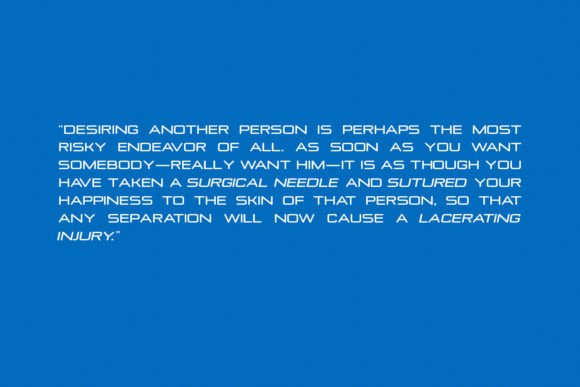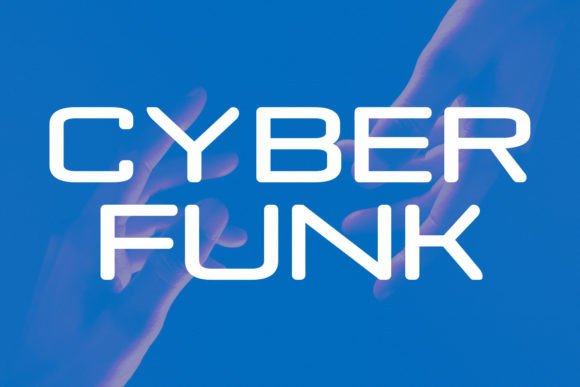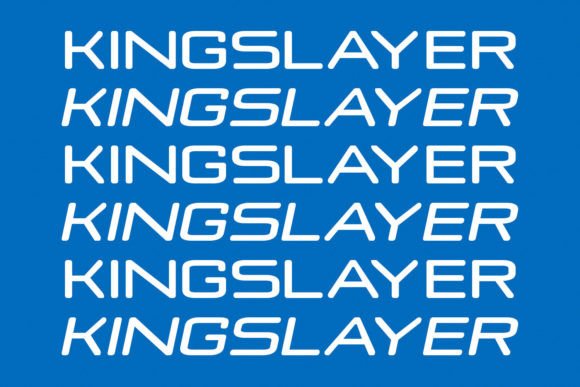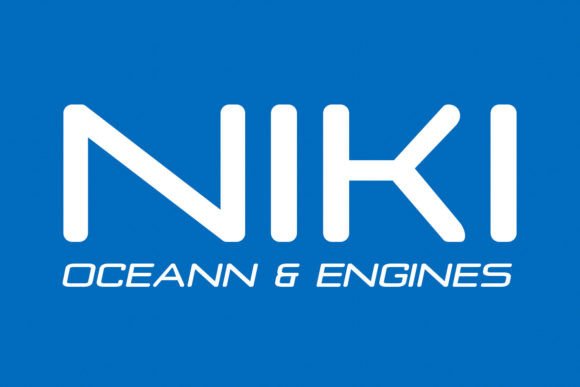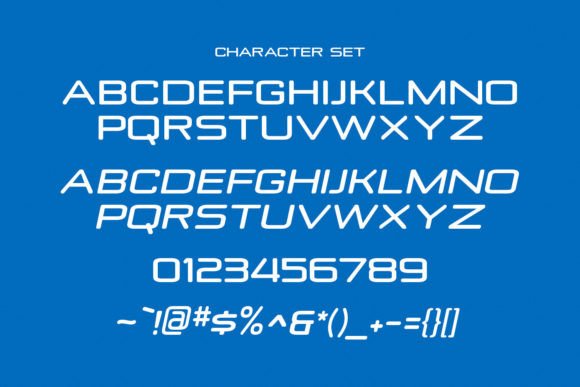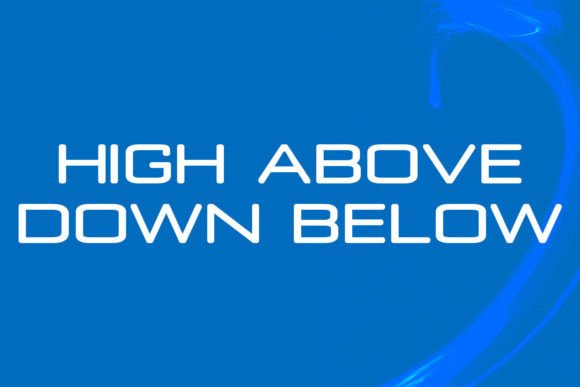
The Perfect Font for a Powerhouse Brand
As designers, we’ve all been there – staring at a blank page, trying to find the perfect font to bring our vision to life. Sometimes, it’s the smallest details that make all the difference. For me, it was the moment I stumbled upon the Calrigo Font, and I knew I had to have it. Its bold, blocky letterforms seemed to shout “strength” and “power” – exactly what I needed for a sports branding project.
Calrigo Font is a cool wide display font that exudes confidence and modernity. Its unique combination of boldness and spaciousness makes it an excellent choice for titles, headlines, and other attention-grabbing design elements. Whether you’re working on a fitness campaign or a sports-related project, Calrigo Font is the perfect tool to convey a sense of strength and energy.
Calrigo Font Key Features
- Font Family: Calrigo Font is a sans-serif font family designed for digital use.
- Unique Characteristics: Calrigo Font features a clean and modern design, with a focus on readability and legibility, making it ideal for digital interfaces, publications, and marketing materials.
Review of Calrigo Font
Overall, I was really excited to dive into the Calrigo Font, but my experience was a mix of great and not-so-great. Here’s the breakdown.
- The Calrigo Font has a unique and modern aesthetic that catches the eye. Its geometric and sans-serif design makes it perfect for digital interfaces and websites.
- The font is highly legible, even at smaller sizes, making it ideal for body text and smaller headings.
- The font’s versatility is impressive, working well in both titles and paragraphs.
- One of the main issues I had with Calrigo Font is its lack of robustness. The font doesn’t come with a full range of language support, which can be a major limitation for international projects.
- The font also lacks a clear guideline for pairing with other fonts, which can make it difficult to create a cohesive design.
- Lastly, the font’s customization options are limited, which can make it difficult to tailor the font to specific design needs.
While Calrigo Font has its strengths, its limitations hold it back from being a top-tier font. If you’re looking for a modern and legible font for a specific project, it may be worth considering. However, for more complex or international projects, you may want to look elsewhere.
Getting the Most Out of Calrigo Font
Here are some tips to get the most out of Calrigo Font:
- Pair Calrigo Font with other fonts to create a unique and eye-catching look.
- Use Calrigo Font to create headings and titles to draw attention to important information.
Here are some common use cases for Calrigo Font:
- Graphic design and branding
Alternative Fonts to Calrigo Font
Open Sans is a clean and modern sans-serif font, suitable for body text and headings. It is highly legible and versatile, making it a great choice for digital products and interfaces. Compared to Calrigo Font, Open Sans is more modern and minimalistic, with a larger x-height that makes it easier to read.
Lato is a sans-serif font with a friendly and approachable feel. It is highly legible and suitable for body text, headings, and titles. Compared to Calrigo Font, Lato has a more rounded and elegant feel, making it a great choice for creative and design-focused projects.
Montserrat is a sans-serif font inspired by the urban environment of Buenos Aires. It is highly legible and suitable for body text, headings, and titles. Compared to Calrigo Font, Montserrat has a more geometric and industrial feel, making it a great choice for modern and tech-focused projects.
Merriweather is a classic serif font with a traditional and elegant feel. It is highly legible and suitable for body text, headings, and titles. Compared to Calrigo Font, Merriweather has a more formal and sophisticated feel, making it a great choice for projects that require a sense of tradition and history.